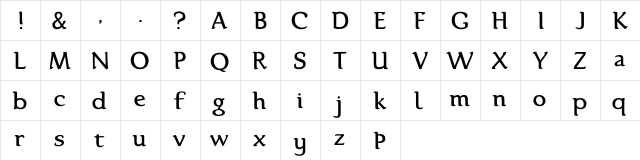
Karolina-DEMO Regular
Design Context for Karolina-DEMO Typeface
Karolina-DEMO is a composed and adaptable typeface that performs quietly and consistently across a wide range of design contexts.
Pro Tip: Use Karolina-DEMO in both headline and body roles to test its range before committing to a single application.